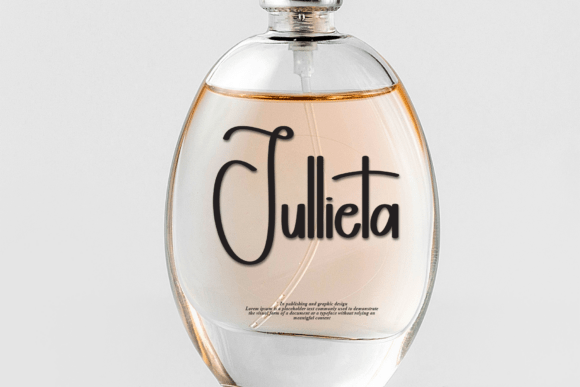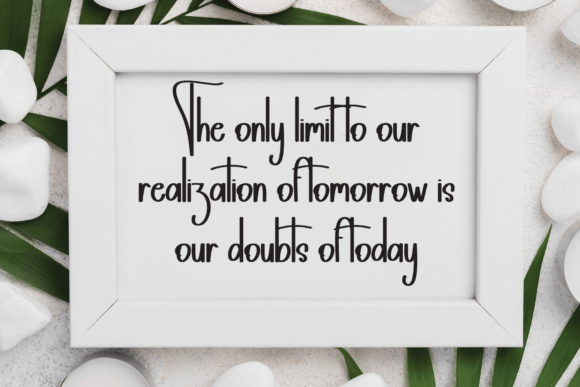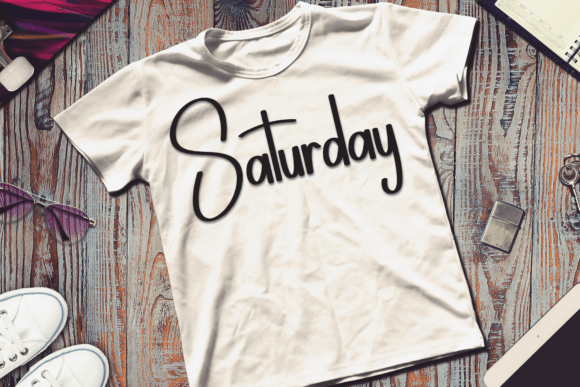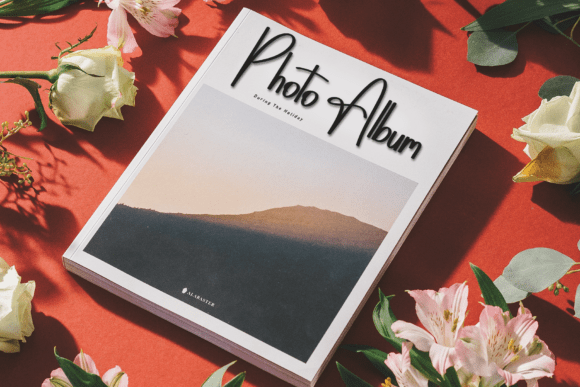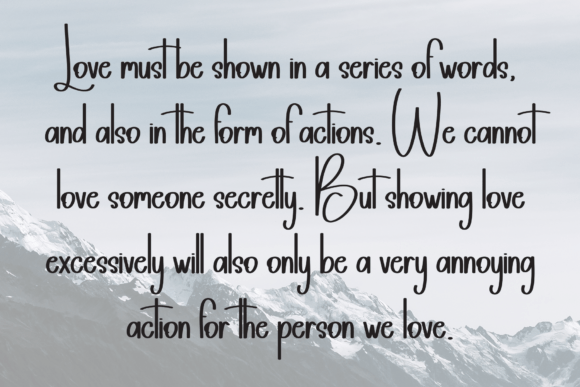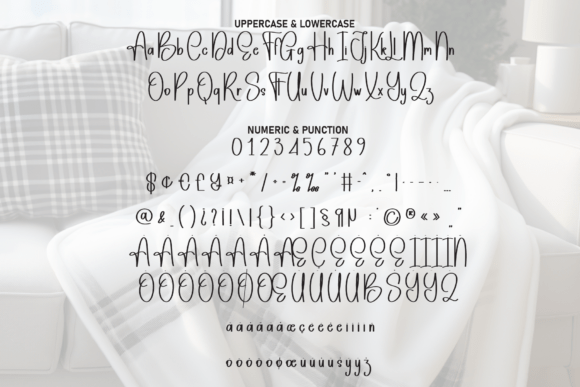
Introducing Blanket Font: The Perfect Blend of Casual Charm and Readability
In the world of typography, a good font can make all the difference in the success of a design project. Whether you’re a professional designer, a crafty DIY enthusiast, or a small business owner looking to create a strong brand identity, the right font can help you convey your message with clarity and style. That’s where Blanket Font comes in – a casual and neat display font designed to bring warmth and clarity to your projects.
The Characteristics of Blanket Font
Blanket Font is a thoughtfully crafted typeface that boasts a clean structure and approachable style, making it perfect for a wide range of design applications. Its balanced letterforms offer exceptional readability and charm, ensuring that every message feels genuine and inviting. Here are some of the key characteristics that make Blanket Font stand out:
- Clean Structure: Blanket Font features a clean and simple structure that makes it easy to read and understand. The font’s lines are smooth and uncomplicated, giving it a clear and uncluttered appearance.
- Approachable Style: The font’s approachable style makes it perfect for designs that require a friendly and inviting tone. Whether you’re creating a logo, a headline, or a social media post, Blanket Font helps you connect with your audience on a personal level.
- Balanced Letterforms: The balanced letterforms in Blanket Font ensure that each character is proportionate and harmonious, making the font a joy to read and use.
Uses of Blanket Font
Blanket Font is a versatile typeface that can be used in a variety of design projects, including:
- Branding: Create a strong brand identity with Blanket Font’s unique and recognizable style. Use it for logos, business cards, and letterheads to establish a consistent visual brand.
- Headlines: Add a touch of elegance and sophistication to your headlines with Blanket Font. Its clean lines and balanced letterforms make it perfect for titles, headings, and subheadings.
- Everyday Designs: Use Blanket Font in your everyday designs, such as social media posts, flyers, and brochures, to add a personal touch and create a lasting impression.
Why Choose Blanket Font?
With so many fonts available, why choose Blanket Font? Here are a few compelling reasons:
- Readability: Blanket Font is designed to be highly readable, making it perfect for designs that require a clear and concise message.
- Uniqueness: Blanket Font’s unique style sets it apart from other fonts, ensuring that your designs stand out from the crowd.
- Versatility: The font’s versatility makes it suitable for a wide range of design applications, from branding and headlines to everyday designs.
Tips for Using Blanket Font
To get the most out of Blanket Font, here are a few tips to keep in mind:
- Use it for display text: Blanket Font is perfect for display text, such as headlines, titles, and subheadings.
- Pair it with other fonts: Experiment with pairing Blanket Font with other fonts to create a unique and visually appealing design.
- Adjust the size: Don’t be afraid to adjust the size of Blanket Font to create visual hierarchy and emphasis in your designs.
In conclusion, Blanket Font is a casual and neat display font that offers a perfect blend of warmth, clarity, and readability. Its clean structure, approachable style, and balanced letterforms make it perfect for a wide range of design applications, from branding and headlines to everyday designs. Whether you’re a professional designer or a crafty DIY enthusiast, Blanket Font is a great addition to your typography toolkit.
So why not give Blanket Font a try? With its unique style and versatility, it’s sure to become a favorite in your design projects.